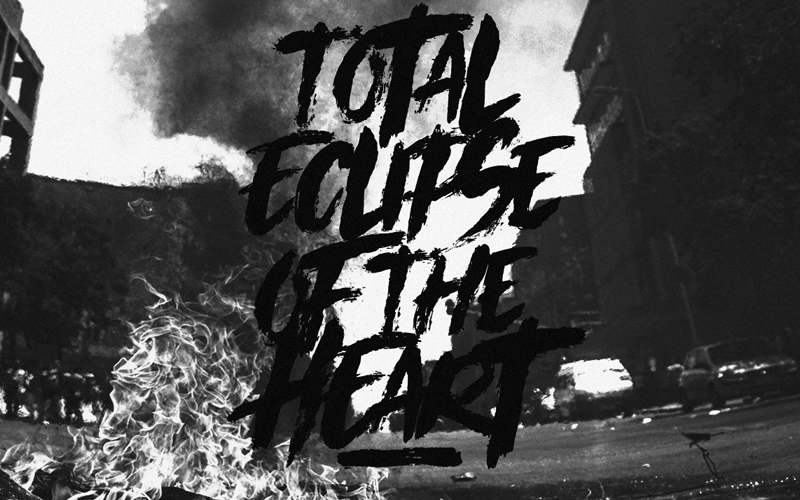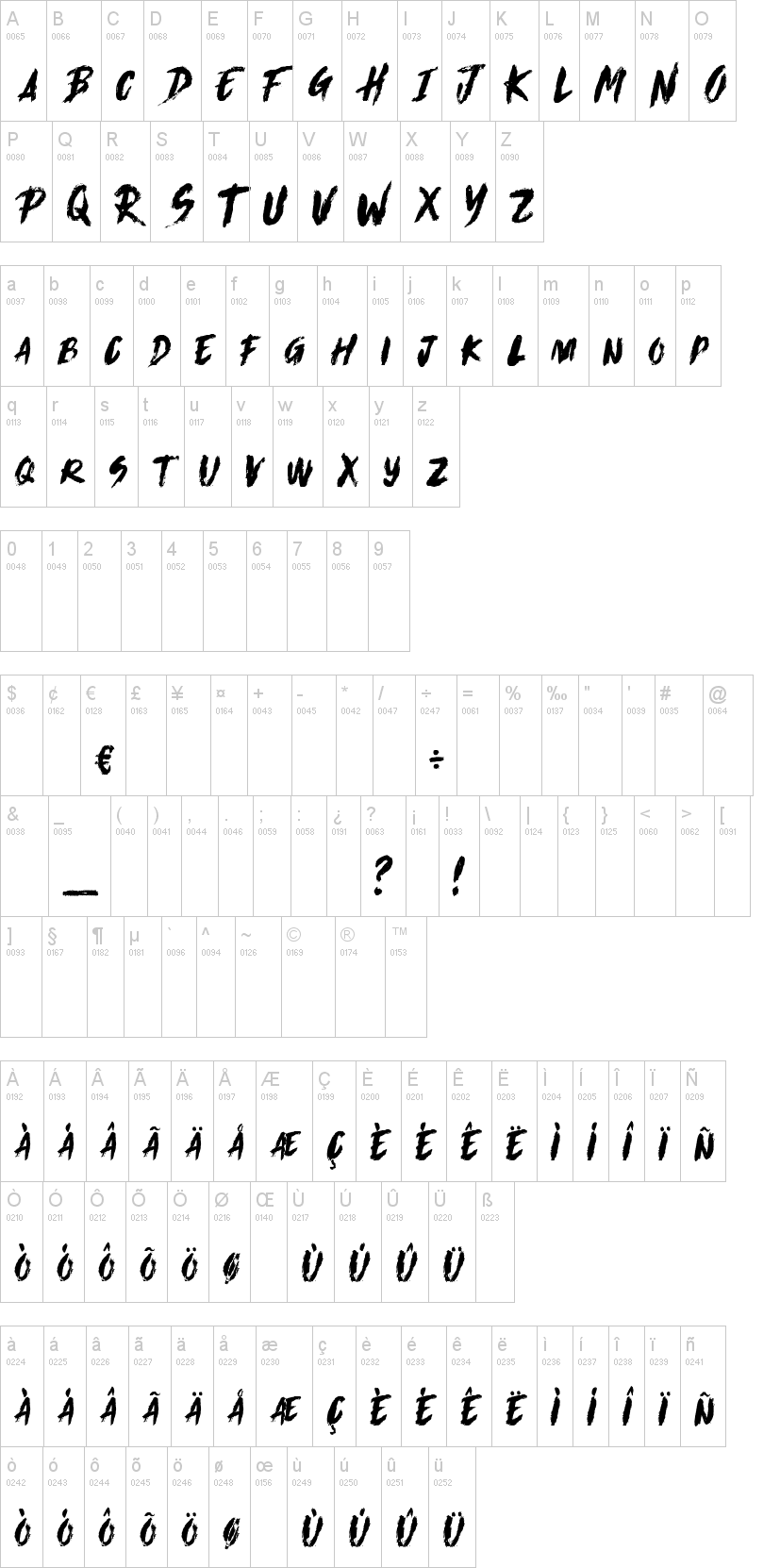
About this font:
This is messy and chaotic. A font of disorder. Eclipse!
With the use of an old round brush and textile ink, we produced a detailed look of another raging font.